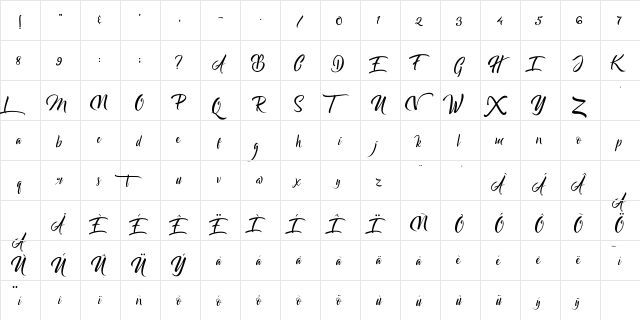
Bareken Regular
Design Context for Bareken Typeface
Bareken is a composed and adaptable typeface that performs quietly and consistently across a wide range of design contexts.